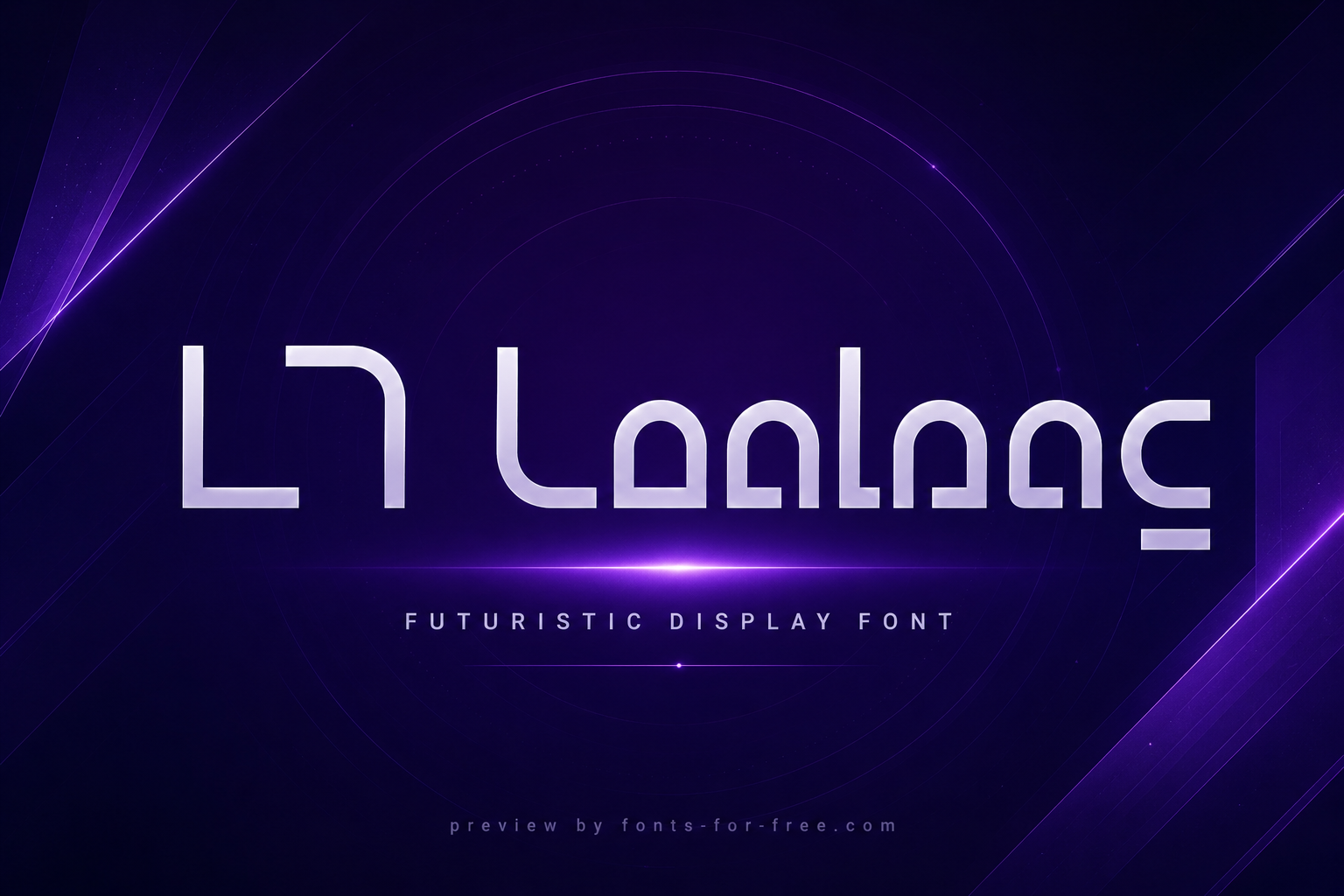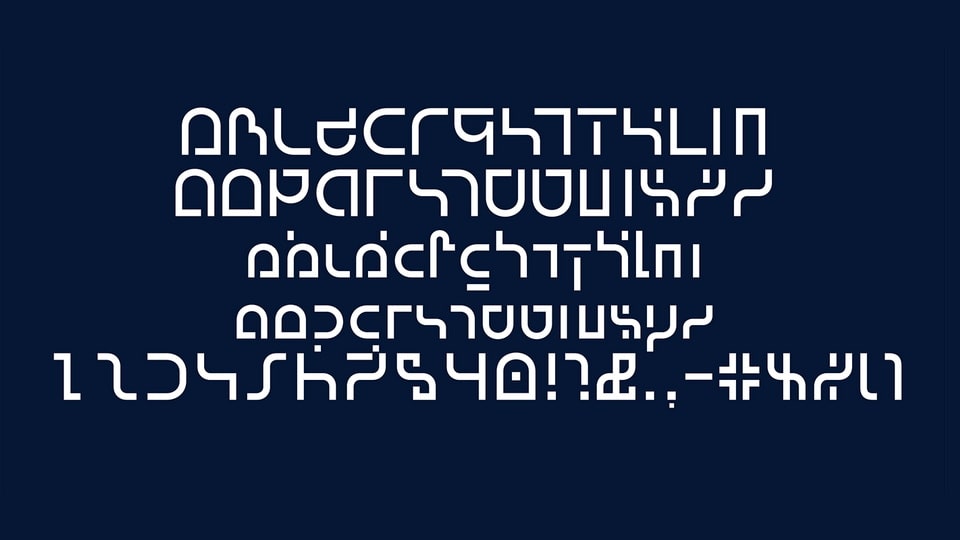
LT Conlang is a futuristic display font designed by Daniel Lyons, with LyonsType listed as the manufacturer and copyright holder. Its letterforms use rounded geometric strokes, interrupted connections, and angular sci-fi shapes that give the alphabet a constructed, coded appearance. The design has low contrast, upright proportions, and a clean modular rhythm, but its decorative forms make it better suited to short text than long reading. It works naturally for technology branding, game titles, sci-fi posters, digital interfaces, concept graphics, and experimental headings. LT Conlang is distributed under the SIL Open Font License 1.1.